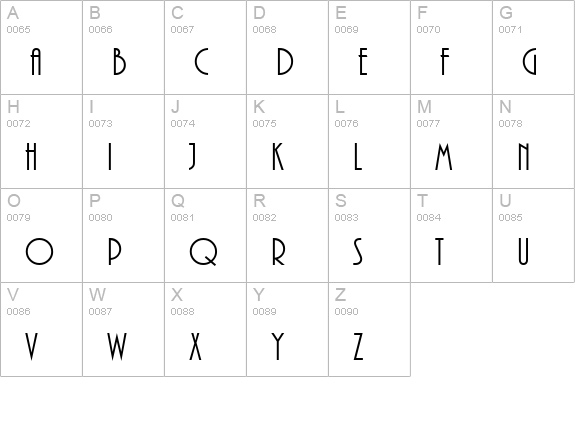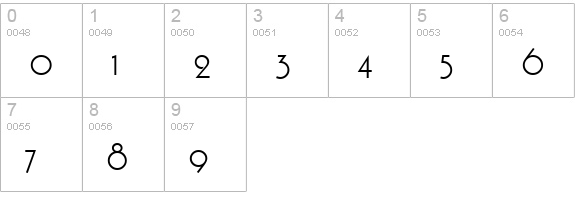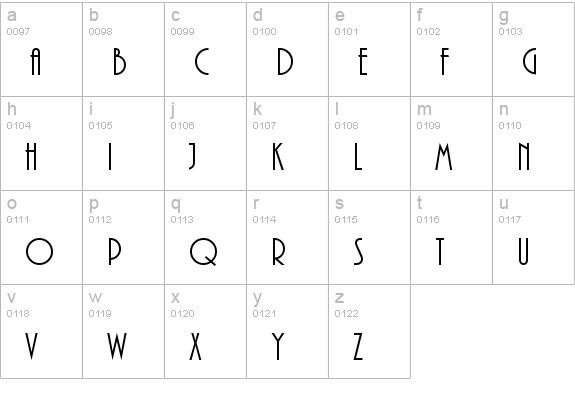
Pizzicato-Osf-Regular is the standard, neutral variant in the Pizzicato typeface family \xE2\x80\x94 well suited to general body text, paragraphs, and standard typographic work.
Pizzicato-Osf-Regular is a modern and elegant font that exudes sophistication and style. With its clean lines and contemporary aesthetic, this font is perfect for a wide range of design projects, from branding to editorial design. The graceful curves and sharp angles of Pizzicato-Osf-Regular make it a versatile choice for both headlines and body text, adding a touch of class to any layout. What makes Pizzicato-Osf-Regular even more appealing is that it is available for free download at FontsMarket.com. This means that you can easily access this beautiful font and use it in your projects without any cost. Whether you are a seasoned designer looking for a fresh typeface or a newcomer exploring the world of typography, Pizzicato-Osf-Regular is a fantastic choice that won't break the bank. Download it today and elevate your design work with this exquisite font.